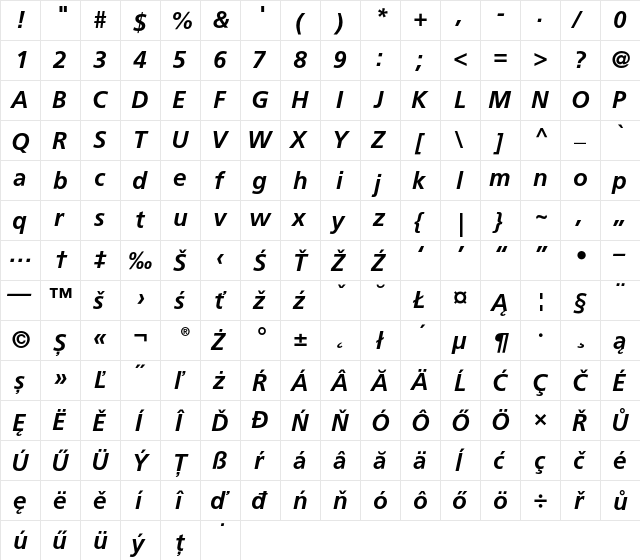
Frutiger CE 66 Bold Italic Font Preview
Design Context for Frutiger Typeface
Frutiger takes a measured approach to typography — its balanced proportions and neutral character make it a reliable workhorse for both digital and print work. The slanted form adds forward momentum and visual energy. The heavy weight commands attention and anchors typographic hierarchies.
Pro Tip: Try Frutiger for annotation and caption copy alongside an upright companion — the contrast in angle creates a dynamic but ordered typographic system.